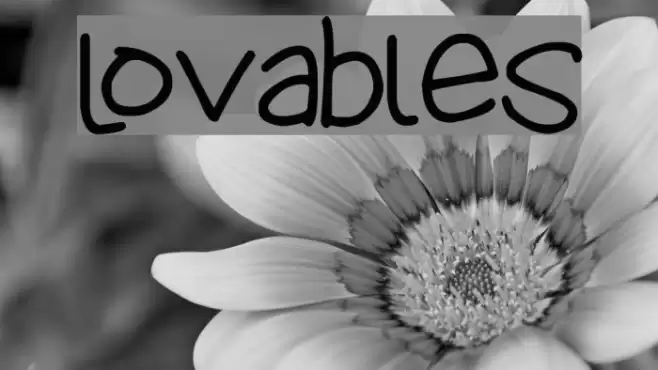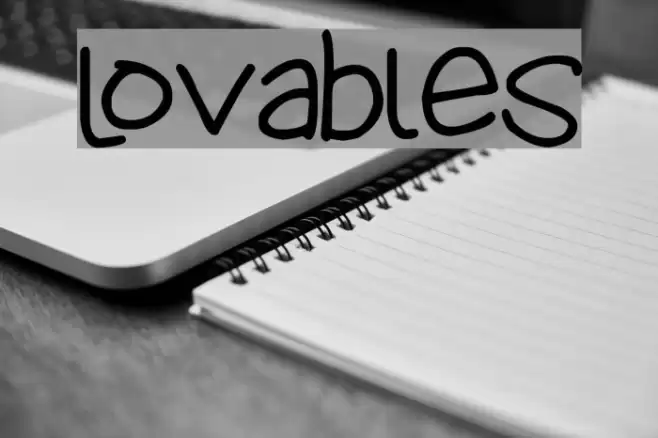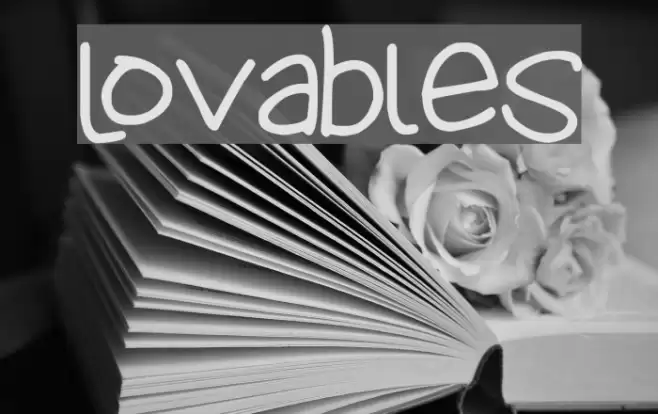
Lovables Font
Lovables Description
This playful and whimsical font features a handwritten style with smooth, rounded edges and a casual, friendly appearance. The characters are slightly irregular, adding to the charm and informal feel of the design. The uppercase and lowercase letters maintain a consistent flow, with a moderate height difference between them. Numbers and special characters are crafted with the same playful touch, making them easily readable while retaining the font's unique personality. This font is ideal for projects that require a personal, approachable touch, such as children's books, greeting cards, or playful branding.
A playful, handwritten font with smooth, rounded edges and a casual style from Uncategorized fonts.
- Proposed Projects: Children's books, greeting cards, playful branding, informal invitations.
- Overall Style: Playful
- Use Case: Greeting cards, Informal invitations, Children's books